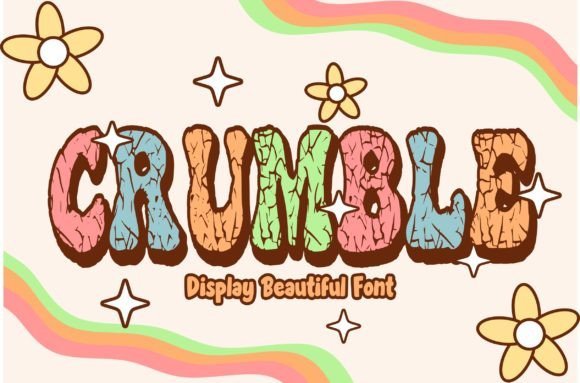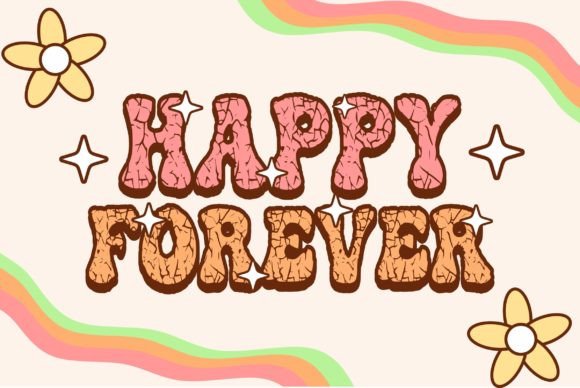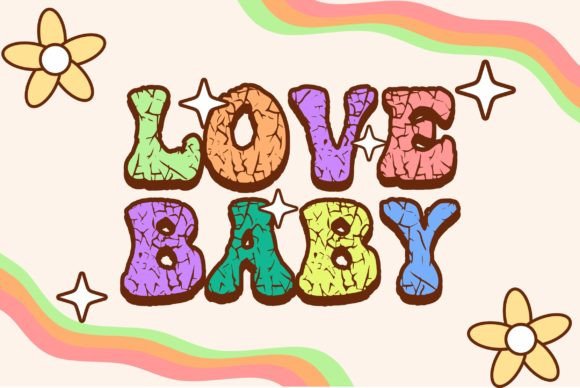
The Perfect Recipe for a Timeless Design
Have you ever been working on a project, staring at a blank page, and suddenly you’re transported back to a bygone era? The smell of old books, the sound of vinyl records, and the feel of vintage paper beneath your fingers. That’s when you know you need a dash of nostalgia in your design.
Enter the Crumble Font, a charming retro display font that captures the essence of vintage design. Its playful curves and cracked lines evoke uniqueness, reminiscent of the fun styles of the past. With its unique character, the Crumble Font adds a touch of whimsy to any project, making it perfect for creative posters, logos, and titles that need a little retro flair.
For designers, the Crumble Font is a valuable addition to any toolkit, offering a chance to infuse projects with a sense of history and personality. Whether you’re working on a design for a vintage-inspired brand or simply want to add some retro charm to your next project, the Crumble Font is the perfect ingredient to bring your ideas to life.
Crumble Font Key Features
- Font Family: Crumble Font is a unique, hand-drawn font family that includes multiple styles and weights.
- Unique Characteristics: The font features distressed, hand-drawn textures and subtle imperfections, giving it a unique, vintage feel.
- Styles and Weights: Includes a range of styles and weights, including regular, bold, italic, and bold italic, to cater to various design needs.
Crumble Font Review
Overall, I think the Crumble Font is an interesting and unique addition to any design project. ✨ Its distressed texture and imperfect letterforms add a touch of vintage charm that can really make a design stand out.
- ✨ The Crumble Font’s distressed texture is well-executed and adds a nice layer of depth to text.
- ✨ The font’s imperfections make it feel more human and less robotic, which can be great for creating a sense of personality in a brand or design.
- ✨ The font is highly customizable, with a wide range of styles and sizes to choose from.
- ⚠️ The Crumble Font can be quite difficult to read at small sizes, which may limit its use in certain applications.
- ⚠️ The font’s distressed texture can sometimes make it difficult to distinguish between similar letters or words.
- ⚠️ The font may not be suitable for all types of designs, particularly those that require a more clean and modern aesthetic.
Overall, I think the Crumble Font is a great choice for designers who want to add a unique and vintage touch to their work. However, it’s not without its limitations, and designers should be aware of these before deciding to use it.
The Crumble Font is ideal for use in creative and artistic projects, such as:
- Book covers and chapter headings
- Poster designs and event invitations
- Menu boards and product labels
Crumble Font comes in a variety of styles and weights, including Regular, Italic, Bold, and Bold Italic. These styles can be accessed by selecting the corresponding font file in your application or by using the font’s built-in styles and weights. Some applications may also allow you to customize the font’s appearance using font effects or styling options.